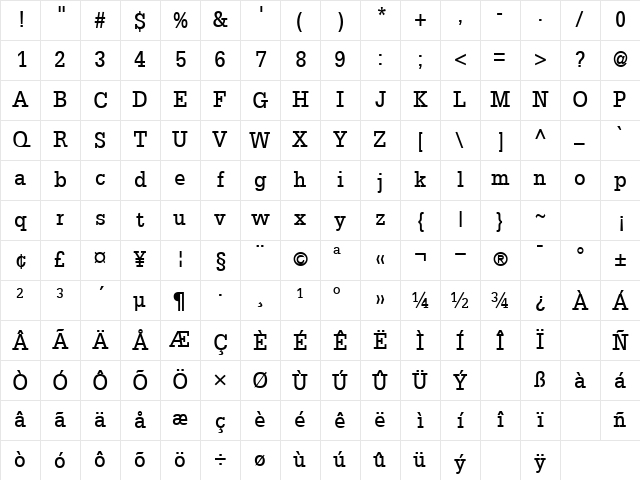
RhymeCond Normal
Design Context for RhymeCond
RhymeCond is a composed and adaptable typeface that performs quietly and consistently across a wide range of design contexts. Its narrow stance lets it pack a punch even in space-constrained designs.